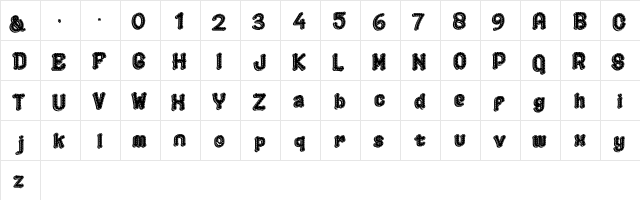
PLAYGROUND 3D Bold Font Preview
Design Context for PLAYGROUND 3D Typeface
PLAYGROUND 3D uses gentle rounded endings to create a warm, inviting typographic personality — less corporate than geometric sans, more refined than playful display fonts. The heavy weight commands attention and anchors typographic hierarchies.
Well-suited to UI design, mobile interfaces, and any brand that wants approachability without sacrificing clarity.
Font Pairing: Pairs well with a rounded or humanist sans for body copy, maintaining the friendly tone without relying on PLAYGROUND 3D to carry extended reading.
Pro Tip: Use PLAYGROUND 3D for UI elements, app interfaces, and anywhere a friendly, approachable tone needs to be maintained without sacrificing clarity.